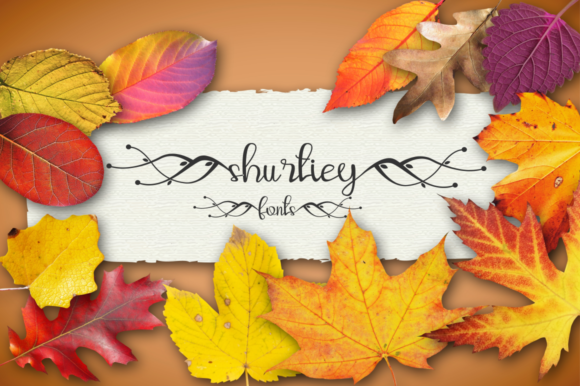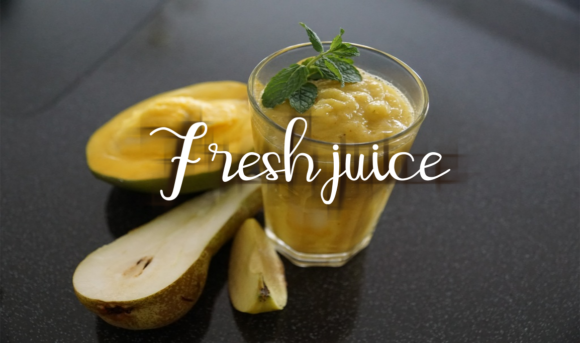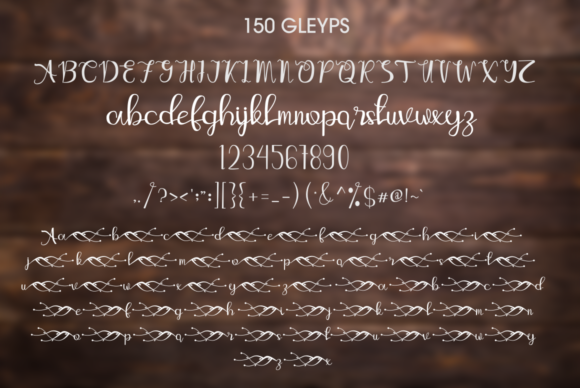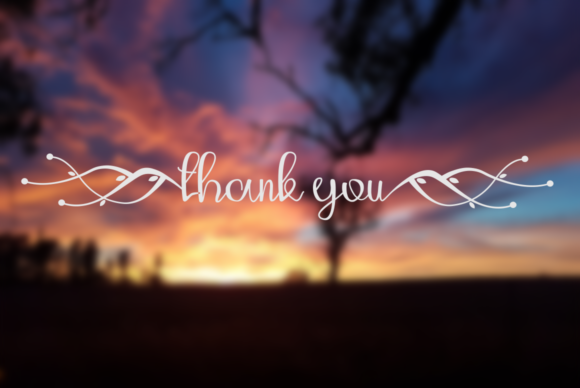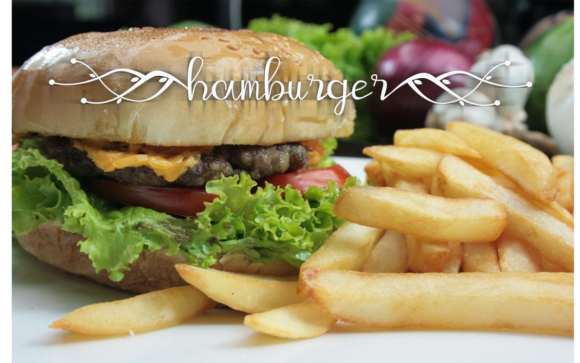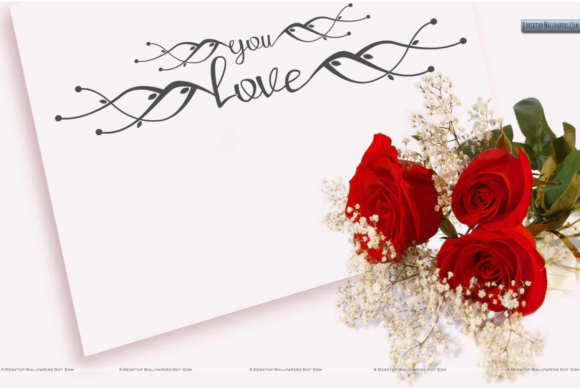
Shurtiey Font
About Shurtiey Font
Shurtiey is a distinct, elegant handwritten font that blends traditional influences into a contemporary aesthetic. Its well balanced Latin details contain distinctive contrasts. Use this font to achieve an exquisite, yet subtle look and maximum versatility.